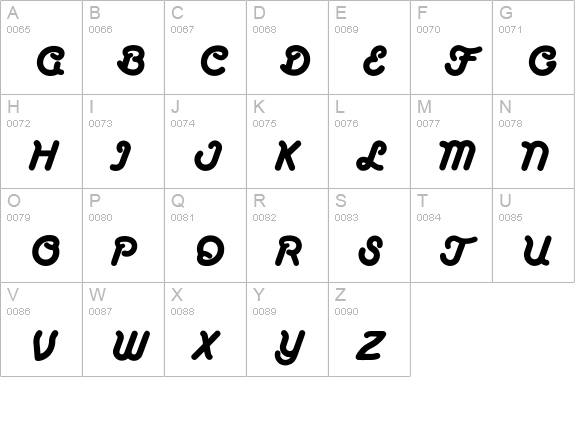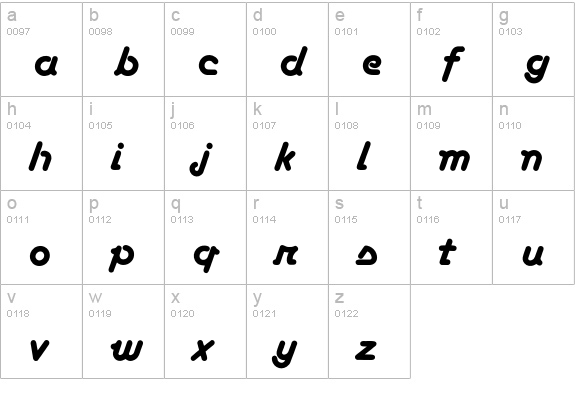
Boascript Font Details
Boascript font is a stunning script typeface that exudes elegance and sophistication. Its flowing lines and exquisite curves make it perfect for a wide range of design projects, from wedding invitations to branding materials. This font captures the essence of handwritten calligraphy with a modern twist, adding a touch of charm to any layout. Boascript font is not only visually appealing but also highly versatile, making it suitable for both personal and commercial use. Whether you're creating a logo, poster, or social media graphic, this font will elevate your design to the next level. The best part is that Boascript font is completely free to download at FontsMarket.com, allowing you to access this beautiful typeface without any cost. Don't miss out on the opportunity to enhance your creations with the timeless beauty of Boascript font. Download it today and let your creativity shine!